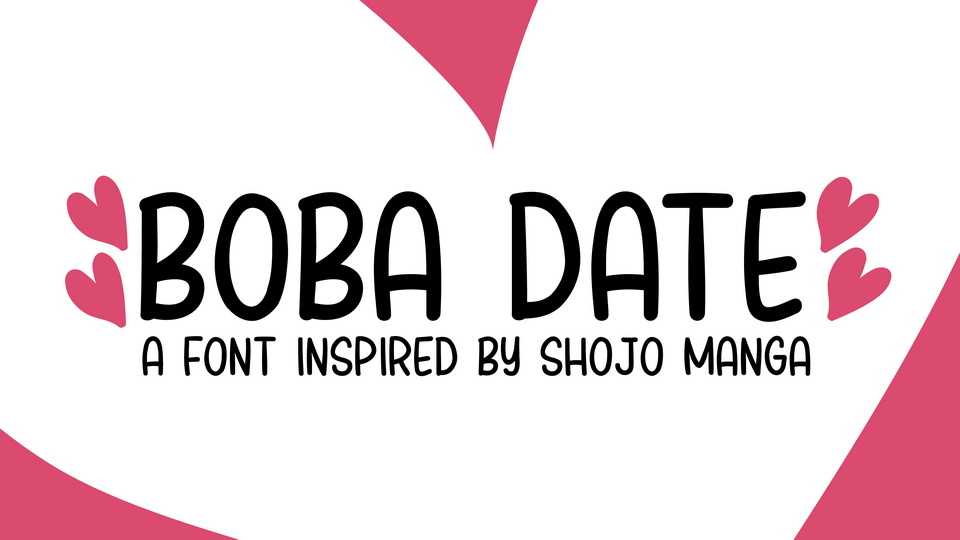
Download Boba Date font, a cutesy handwritten typeface with 4 styles that a wide range of glyphs designed for the editorial needs of comic book lettering.